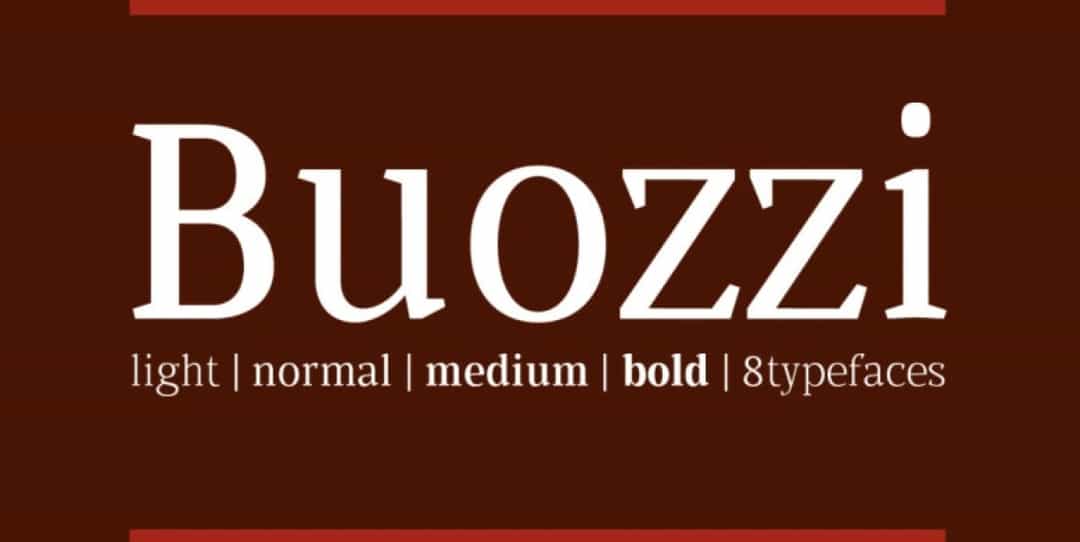
Buozzi Fontis is a family of 8 typefaces inspired by notes and sketches drawn by Paulista printer “Walter Buozzi”, making them suitable for editorial Design (books magazines books newspapers).